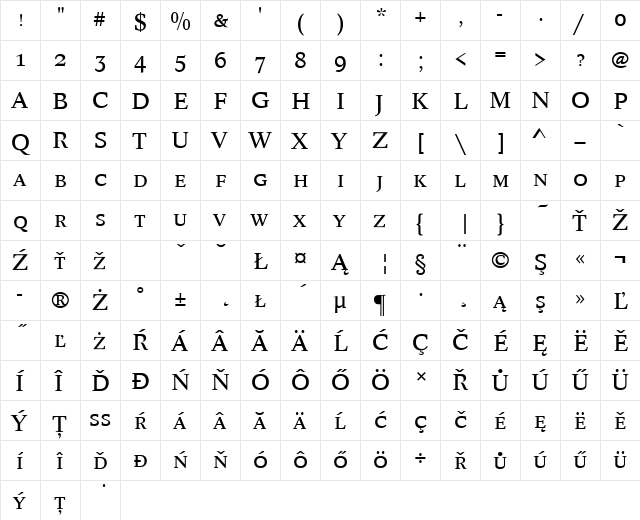
ContusSCTEEReg Regular
Design Context for ContusSCTEEReg Typeface
ContusSCTEEReg takes a measured approach to typography — its balanced proportions and neutral character make it a reliable workhorse for both digital and print work.